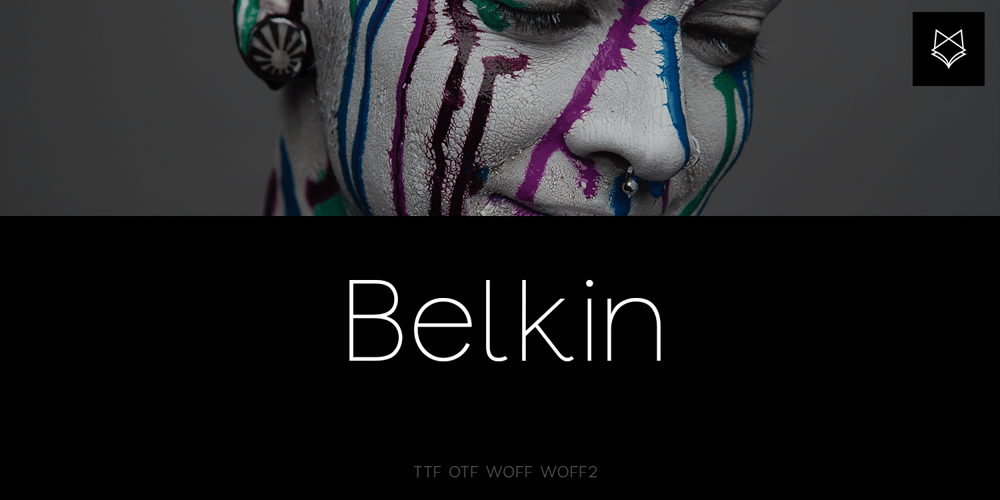
Belkin Display Typeface Font Family was designed by Evin Tony and published by FoxType. Belkin Display Typeface contains 6 styles and family package options. Belkin Display new generation Typeface. Belkin Dispaly Typeface created with the vision of attract the audience to your brand . The finest details of this typeface are methodically and mathematically created. Belkin is created with all the tasks of a corporate font and also for the usage in a variety of projects, including branding product, logos, titles, headlines, servers, posters, screens, display, digital ads, and everything else.We are putting a lot of effort on this font as a long-term project.6 Weights Included.